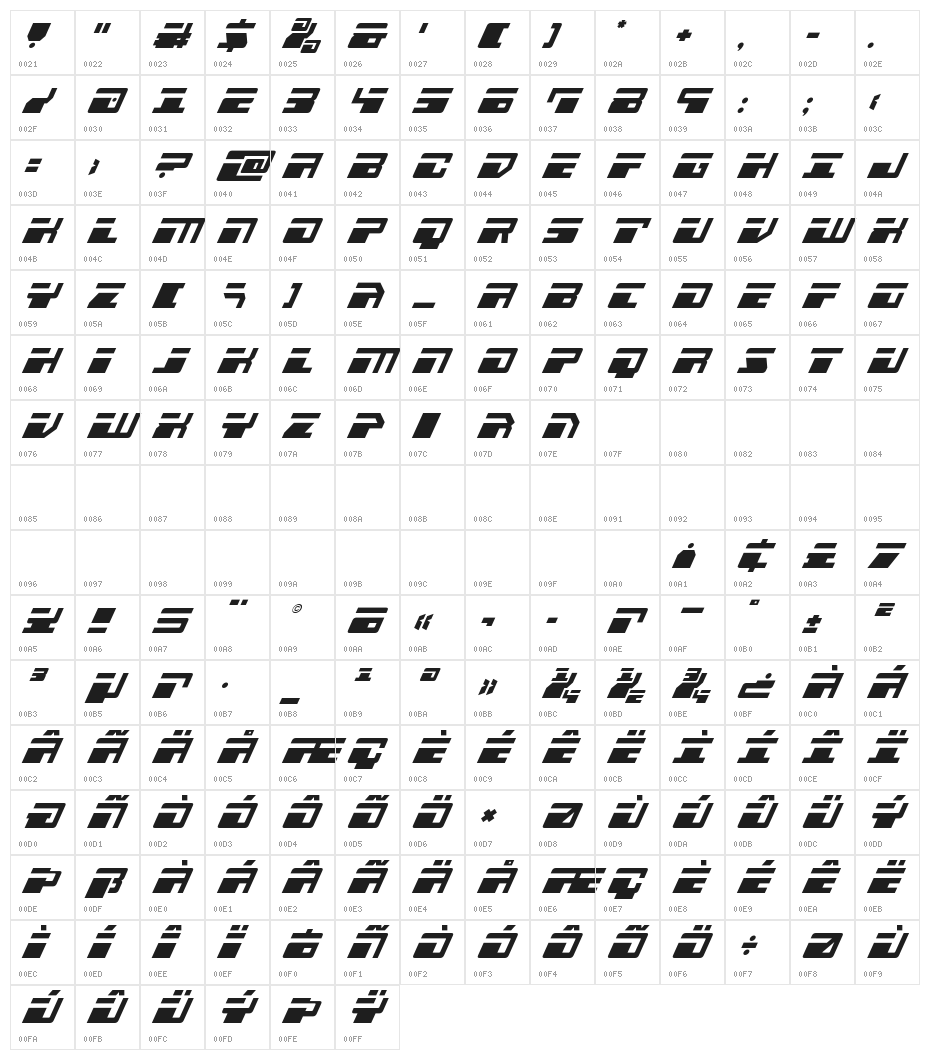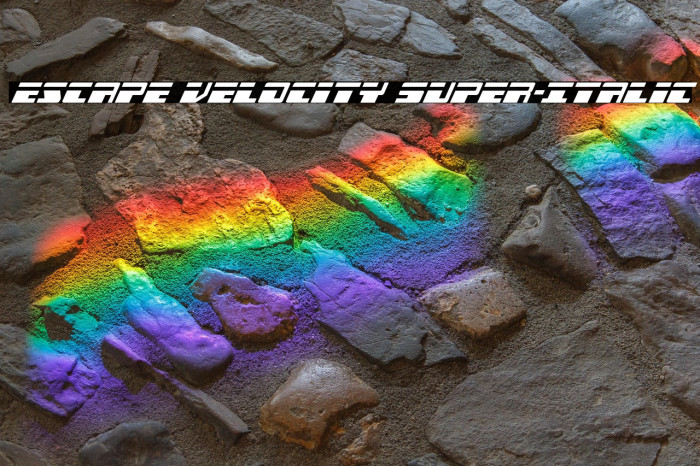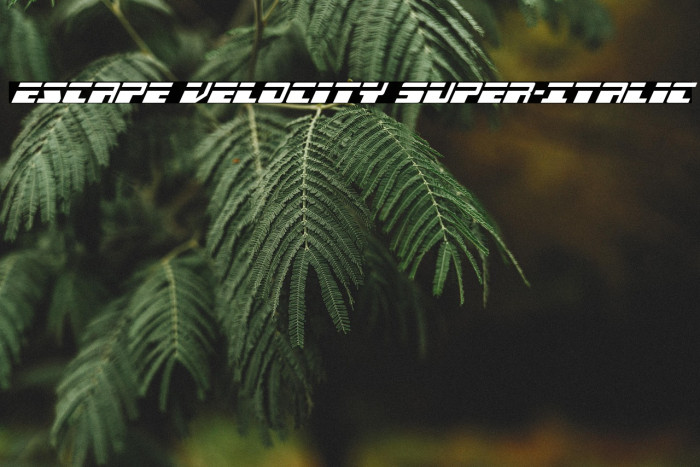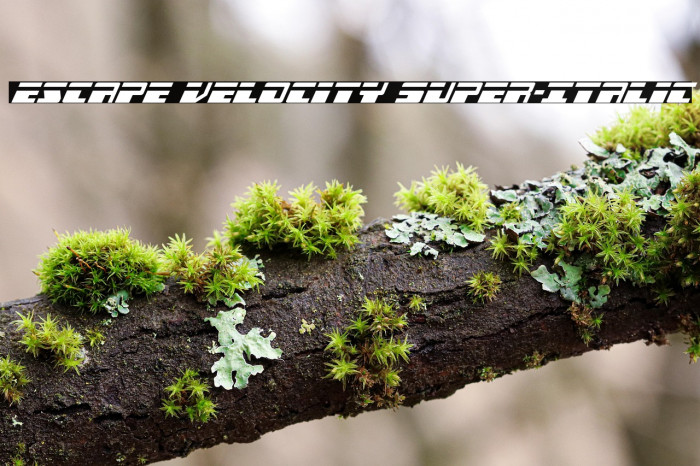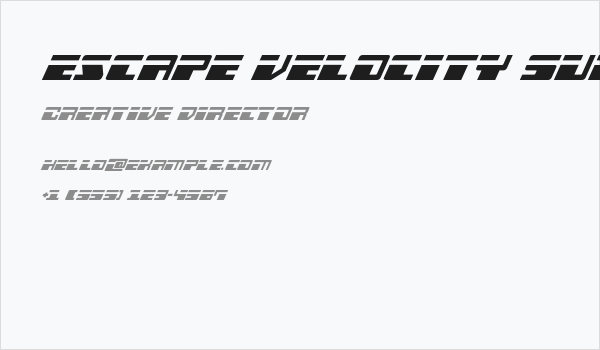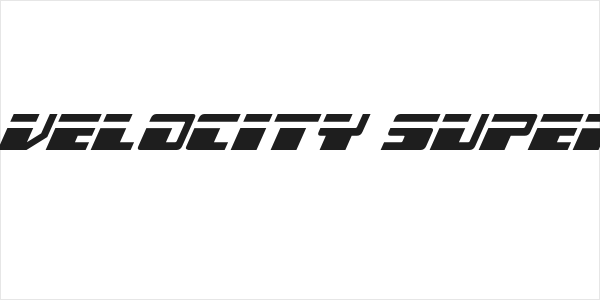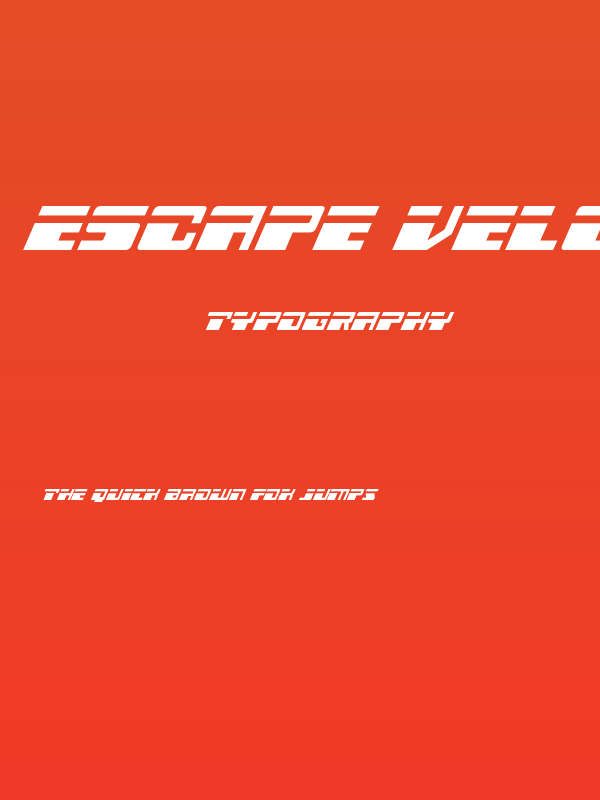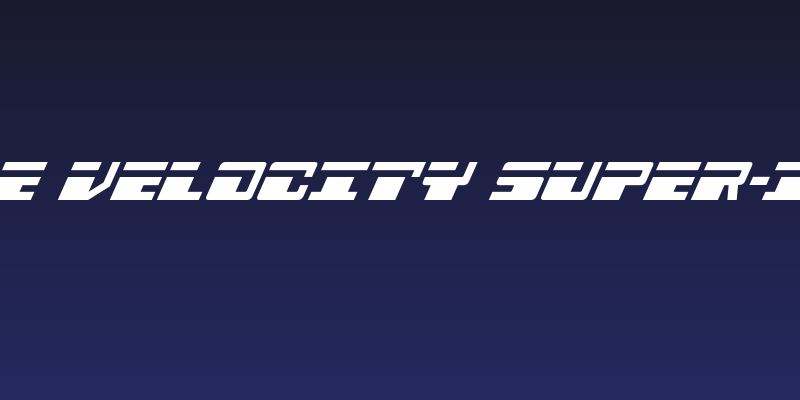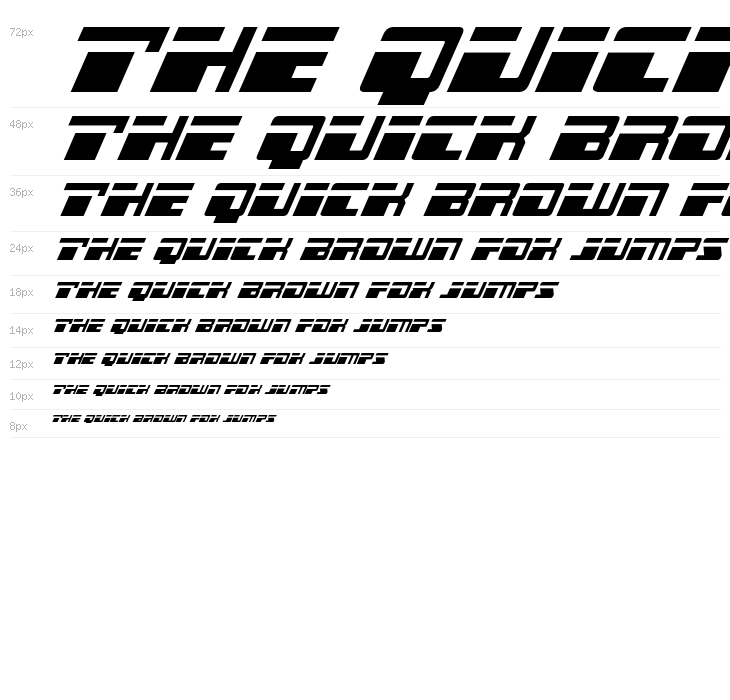
Escape Velocity Super-Italic Font
Escape Velocity Super-Italic Description
This font features a bold, futuristic design with a strong italic slant, giving it a dynamic and forward-moving appearance. The characters are wide and blocky, with sharp angles and a consistent stroke width that conveys a sense of speed and modernity. The uppercase and lowercase letters maintain a uniform style, while the numerals and special characters complement the overall aesthetic. The font's geometric structure and solid presence make it ideal for projects that require a bold statement.
| Proposed Projects | Ideal for sci-fi themed designs, video game titles, technology branding, and sports team logos. |